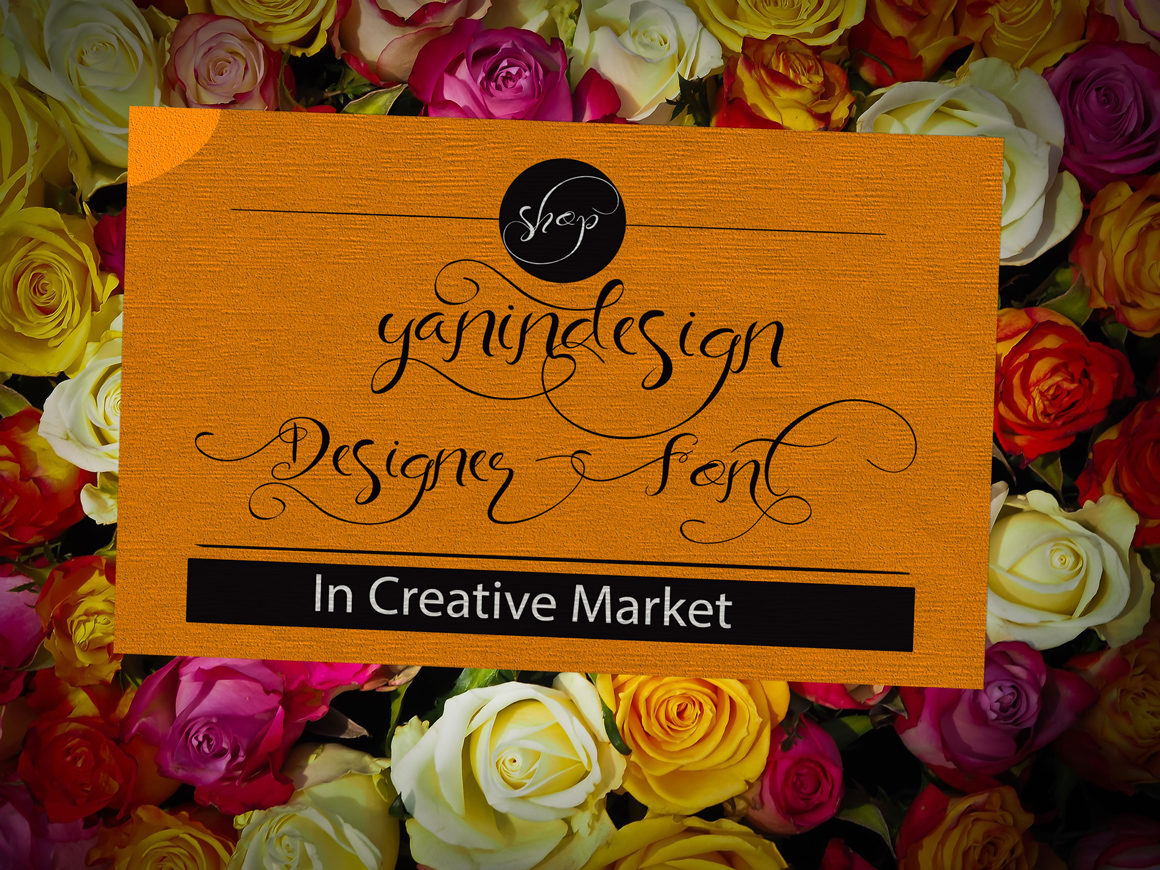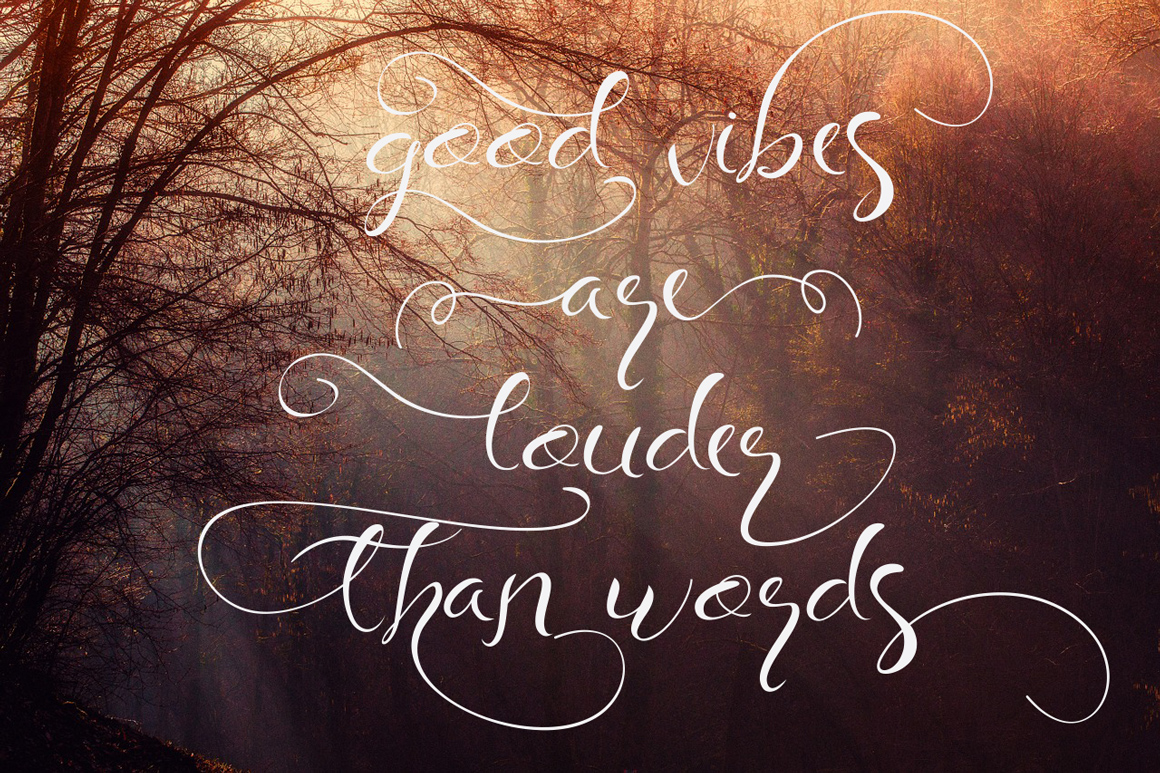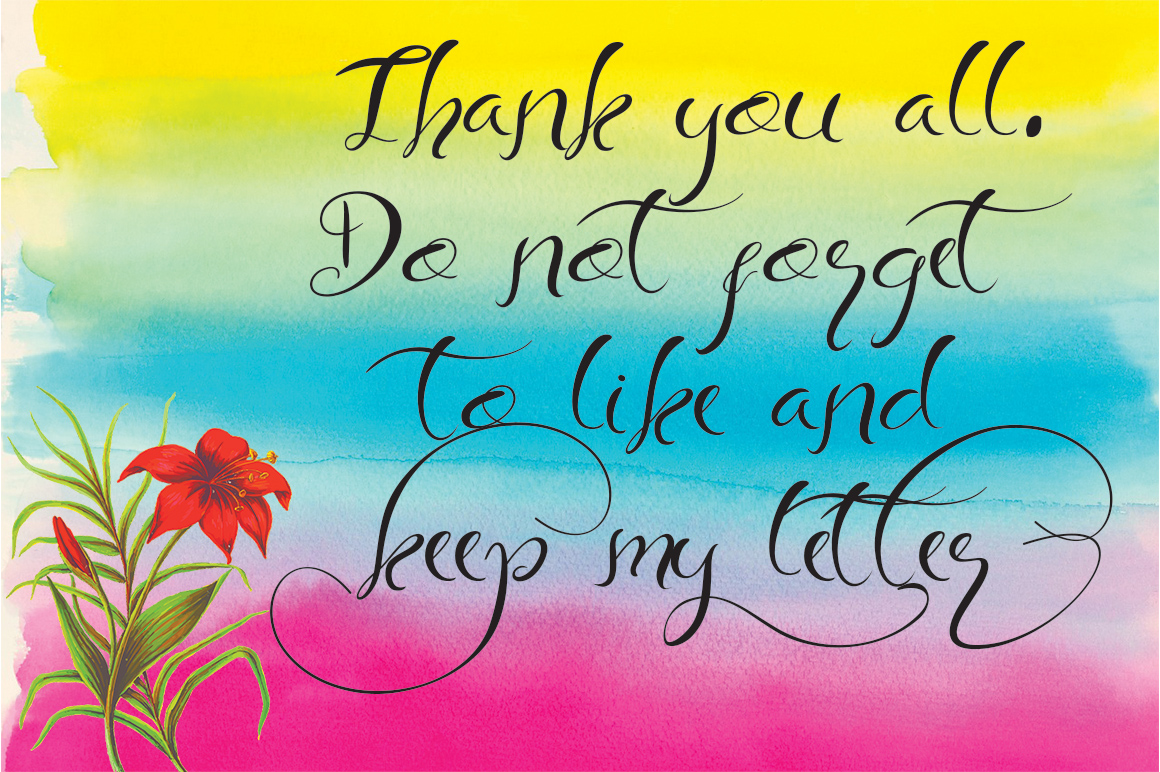
Enjoy Summer Script
Enjoy Summer Script Font
Enjoy Summer is carefully crafted font and every single letters have been carefully crafted to make your text looks awesome. With lot of alternate glyph will make your word feel like natural hand drawn. This font can be used for quotes, poster, wedding, branding, logo, fashion, apparel, letter, invitation, stationery, etc.